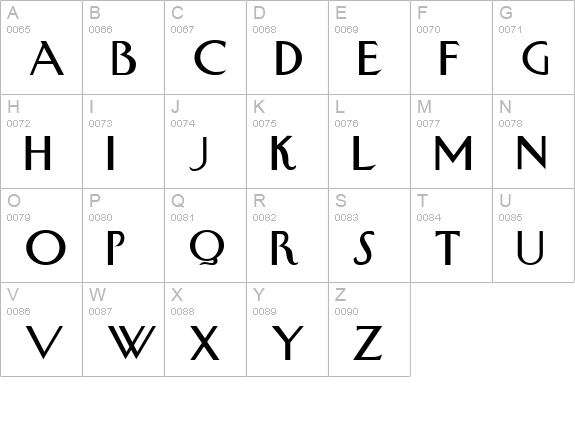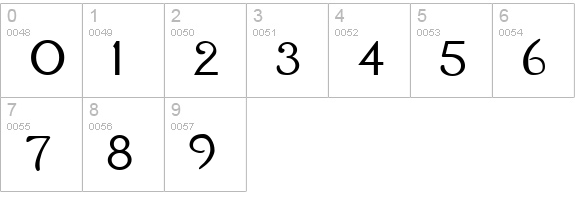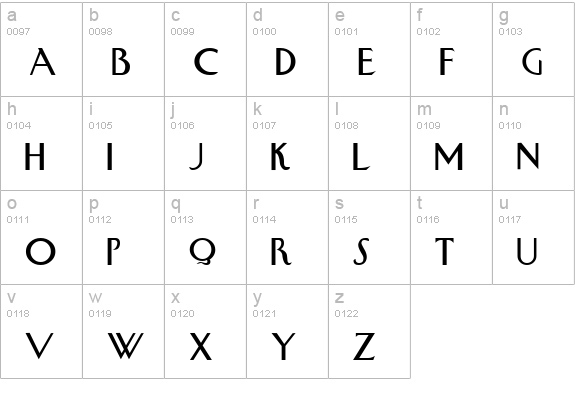
Cygnet Regular is the standard, neutral variant in the Cygnet typeface family \xE2\x80\x94 well suited to general body text, paragraphs, and standard typographic work.
Cygnet Regular font is a stunning typeface that effortlessly combines elegance and modernity. Its sleek and clean lines give it a timeless appeal, making it perfect for a wide range of design projects. This versatile font is suitable for both headings and body text, thanks to its balanced proportions and legible letterforms. Its distinct and refined characters are meticulously crafted, ensuring a pleasant reading experience. Cygnet Regular font is available in a range of weights, allowing for a variety of design possibilities. Whether you're creating a logo, a website, or a printed piece, this font will add a touch of sophistication to your project. One of the best features of Cygnet Regular font is that it is free. That's right, you can download this incredible font for no cost at all. Simply head over to FontsMarket.com and explore the vast collection of fonts, including Cygnet Regular. This means that you can elevate your designs without having to spend a fortune on premium fonts. So, if you're looking for a font that is both stylish and freely available, Cygnet Regular font is the perfect choice. Download it today and see how it enhances your designs with its elegance and versatility.